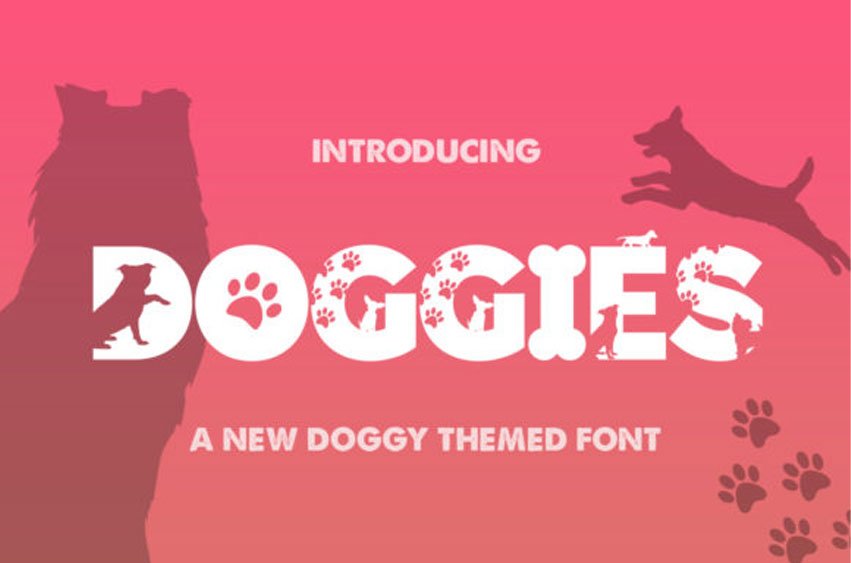
Doggies Silhouette Font
Doggies Silhouette Font is an amazing display font. It is the perfect choice for any pet related project!
It will certainly amaze your readers.